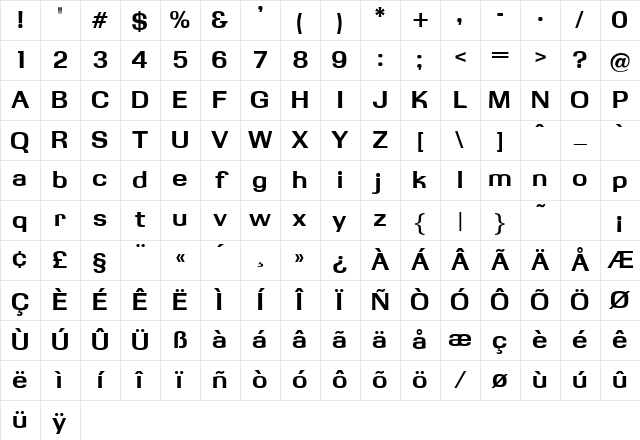
Obbsidda Regular Free Font
Obbsidda Regular
Design Context for Obbsidda
Obbsidda is a composed and adaptable typeface that performs quietly and consistently across a wide range of design contexts.
Pro Tip: Use Obbsidda in both headline and body roles to test its range before committing to a single application.